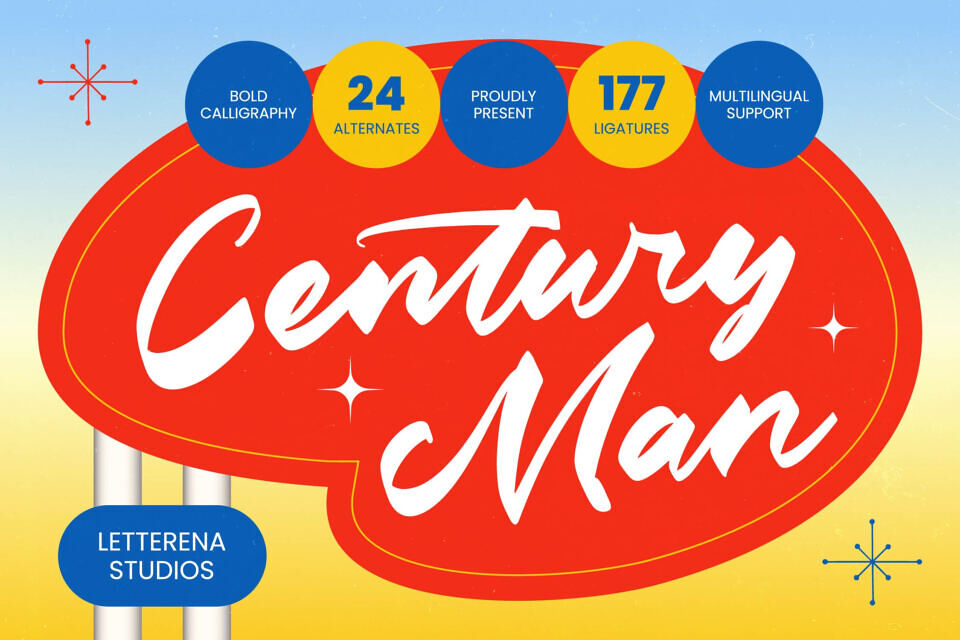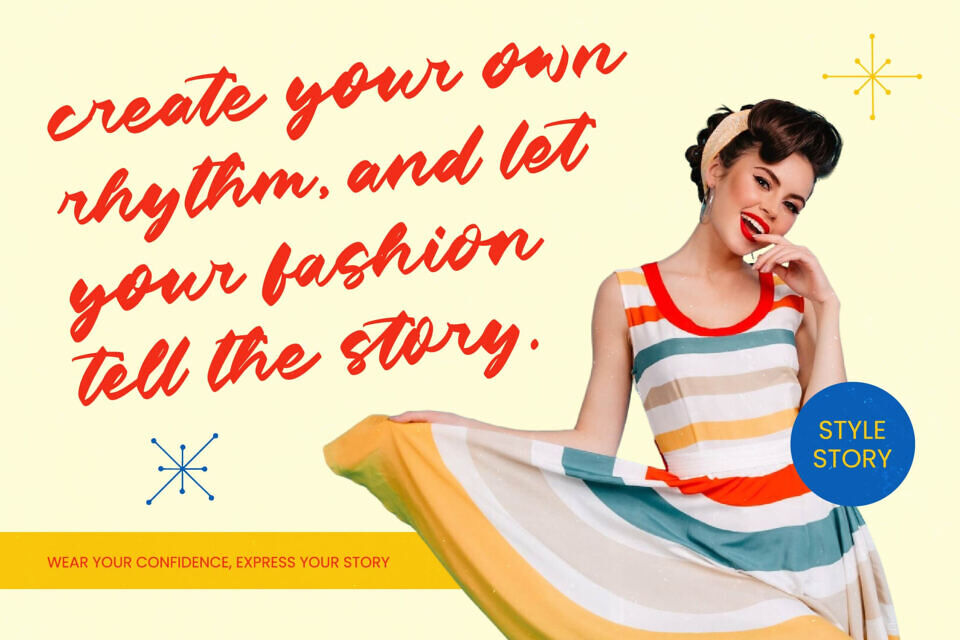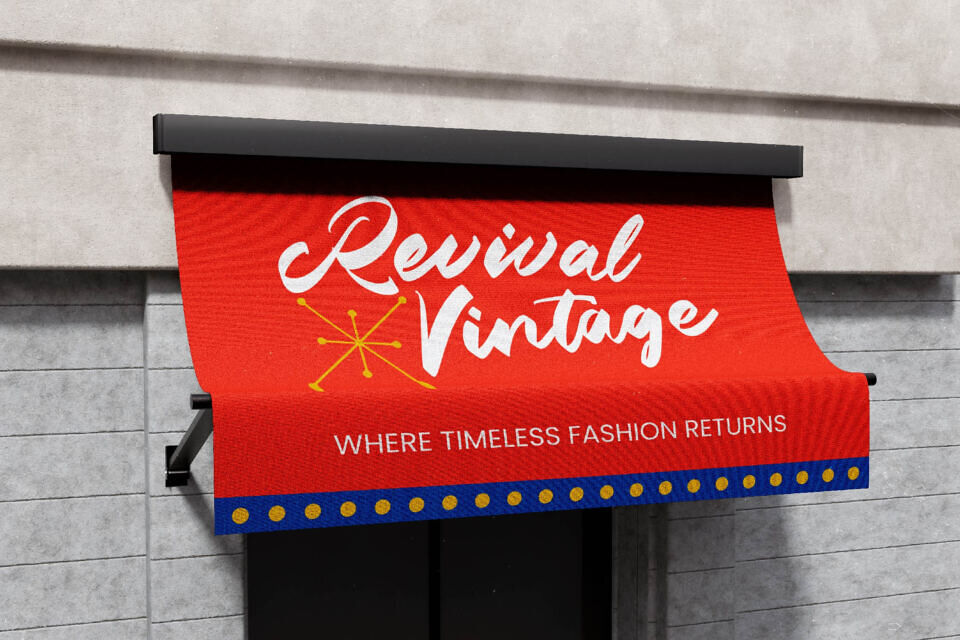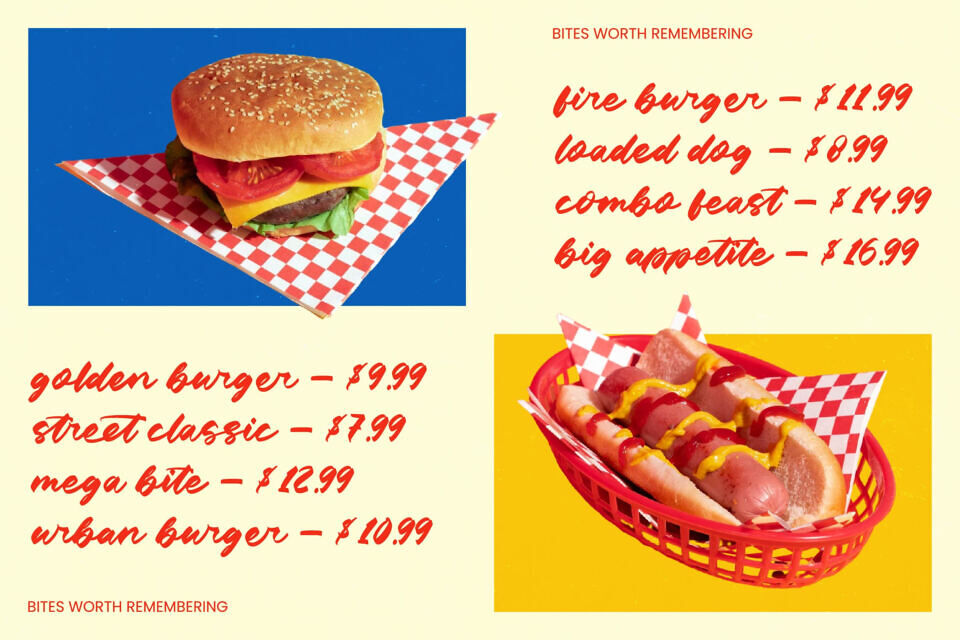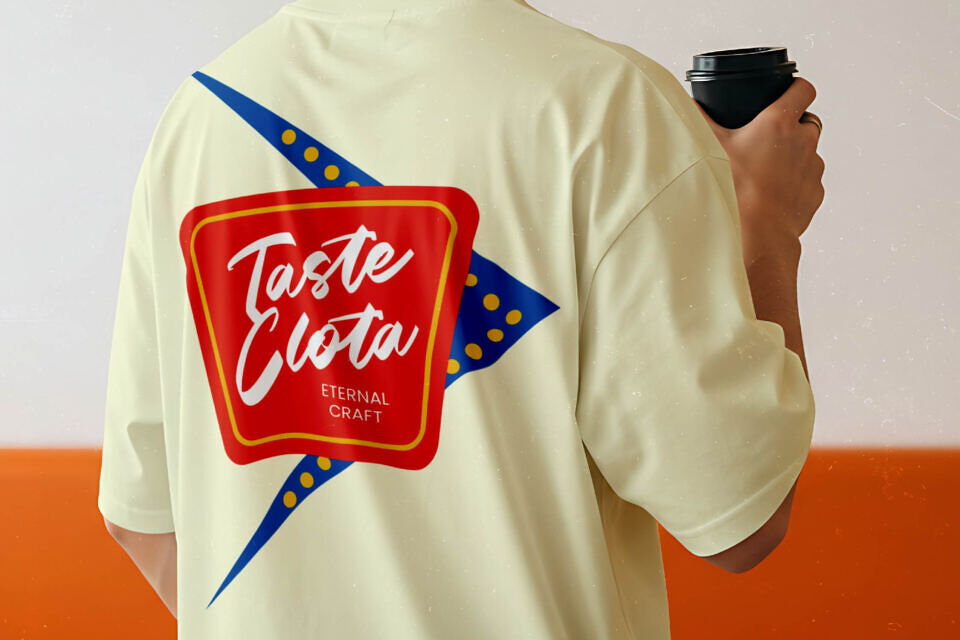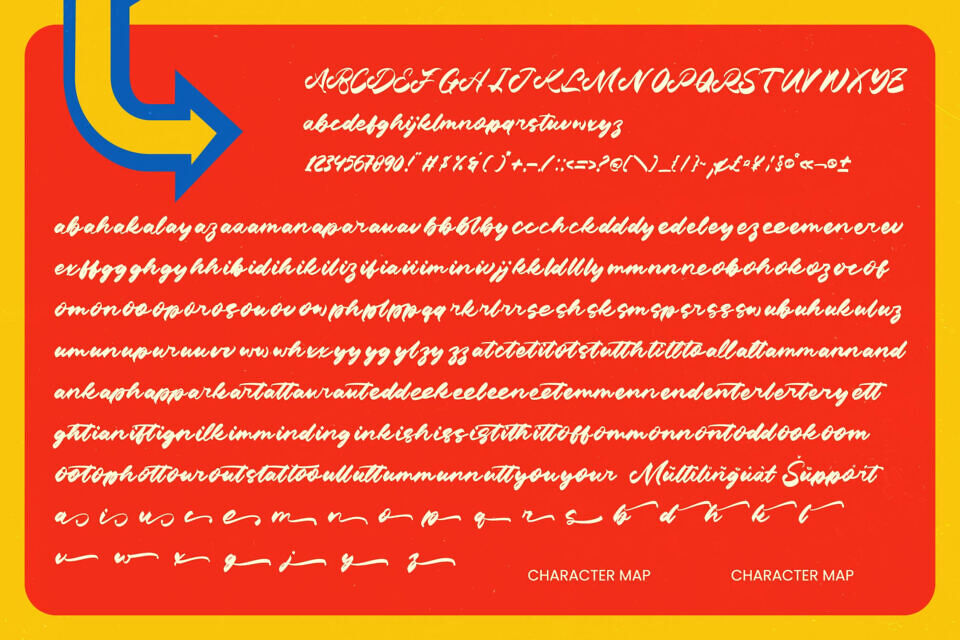
Elevate your designs with a premium font that blends mid-century charm and modern sophistication. This bold calligraphy font features dynamic strokes and a handcrafted feel, making it perfect for adding vintage personality to contemporary layouts.
With 24 alternates and 177 ligatures, it offers unparalleled design flexibility, ideal for luxury branding, packaging, and editorial design, and is sure to make your brand stand out with its striking silhouette and sophisticated touch.